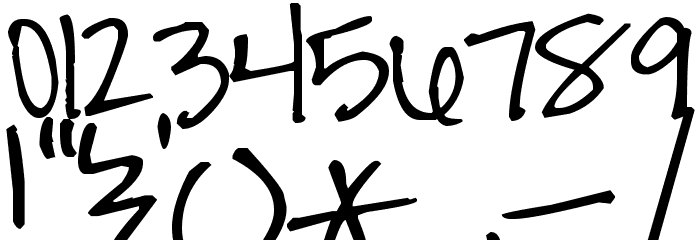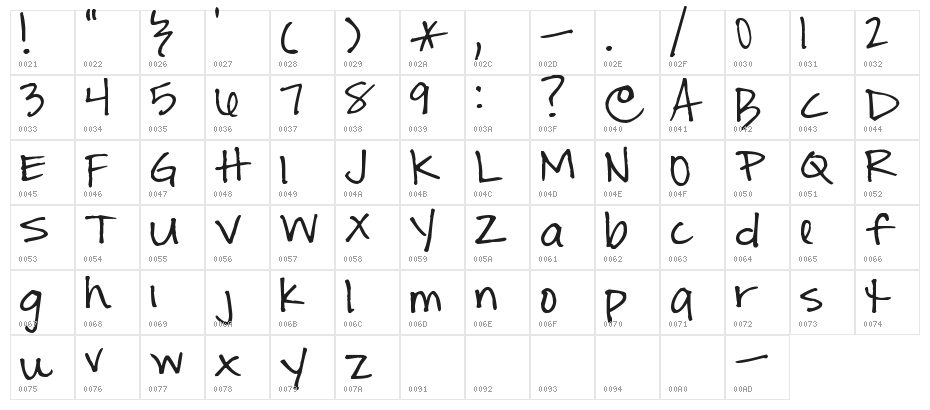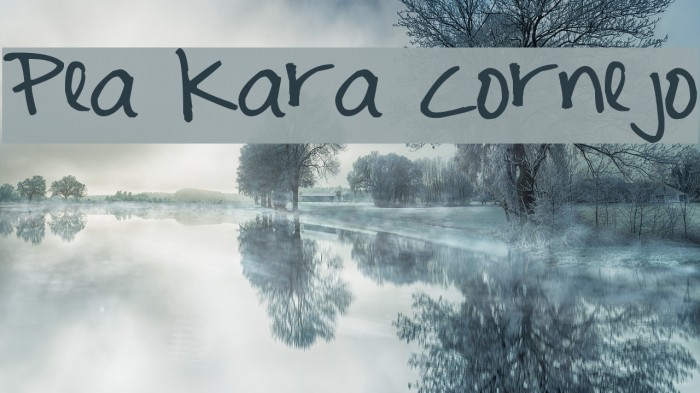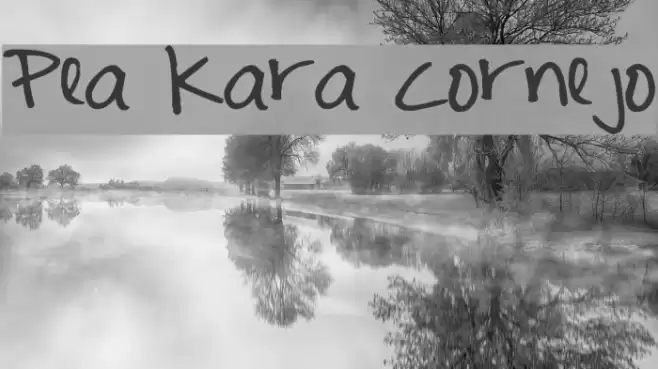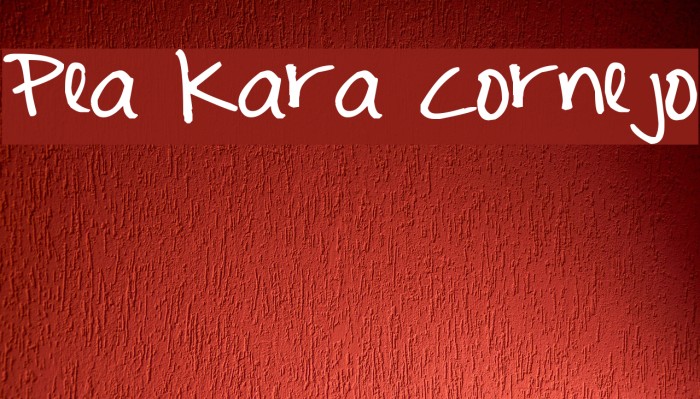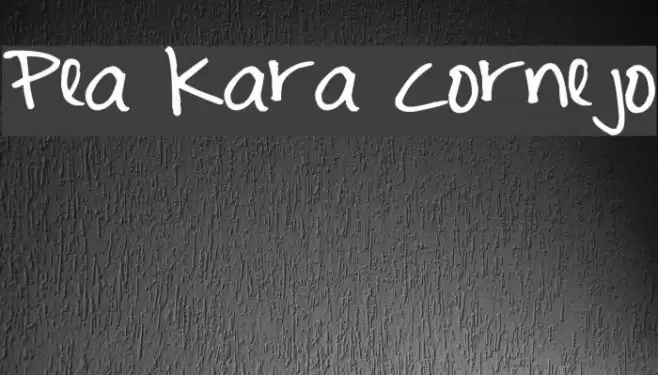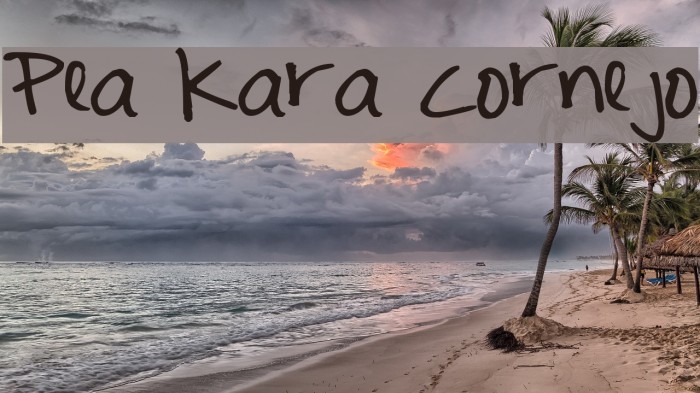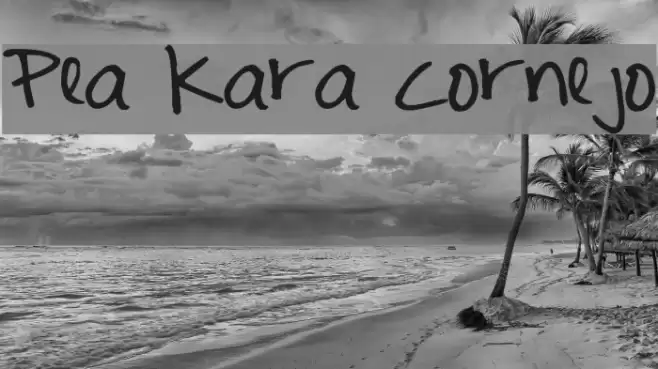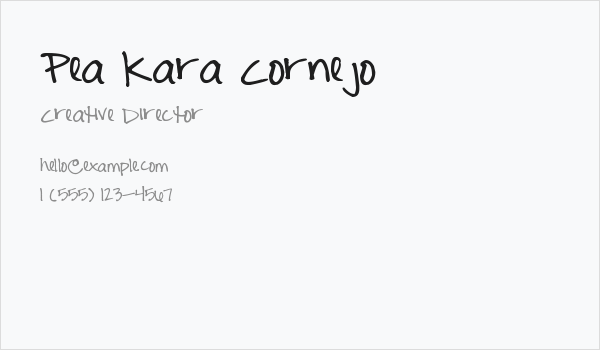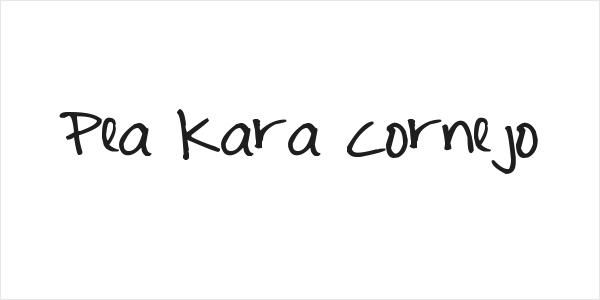
Pea Kara Cornejo Font
Pea Kara Cornejo Description
This font exhibits a playful and casual handwritten style, characterized by its irregular and dynamic strokes. The letters have a natural flow, mimicking the look of personal handwriting with a slightly messy yet charming appearance. The uppercase and lowercase letters maintain a consistent style, with some variations in stroke thickness that add to its informal appeal. The numbers and special characters follow the same handwritten aesthetic, making it suitable for projects that require a personal touch. Its overall look is approachable and friendly, perfect for conveying warmth and personality.
| Use Case | Greeting cards, Personal notes, Informal invitations |
| Proposed Projects | Ideal for personal notes, greeting cards, informal invitations, children's books, and creative projects that require a warm, personal feel. |